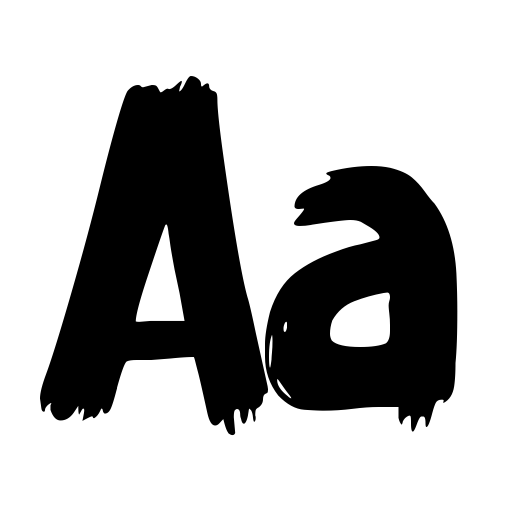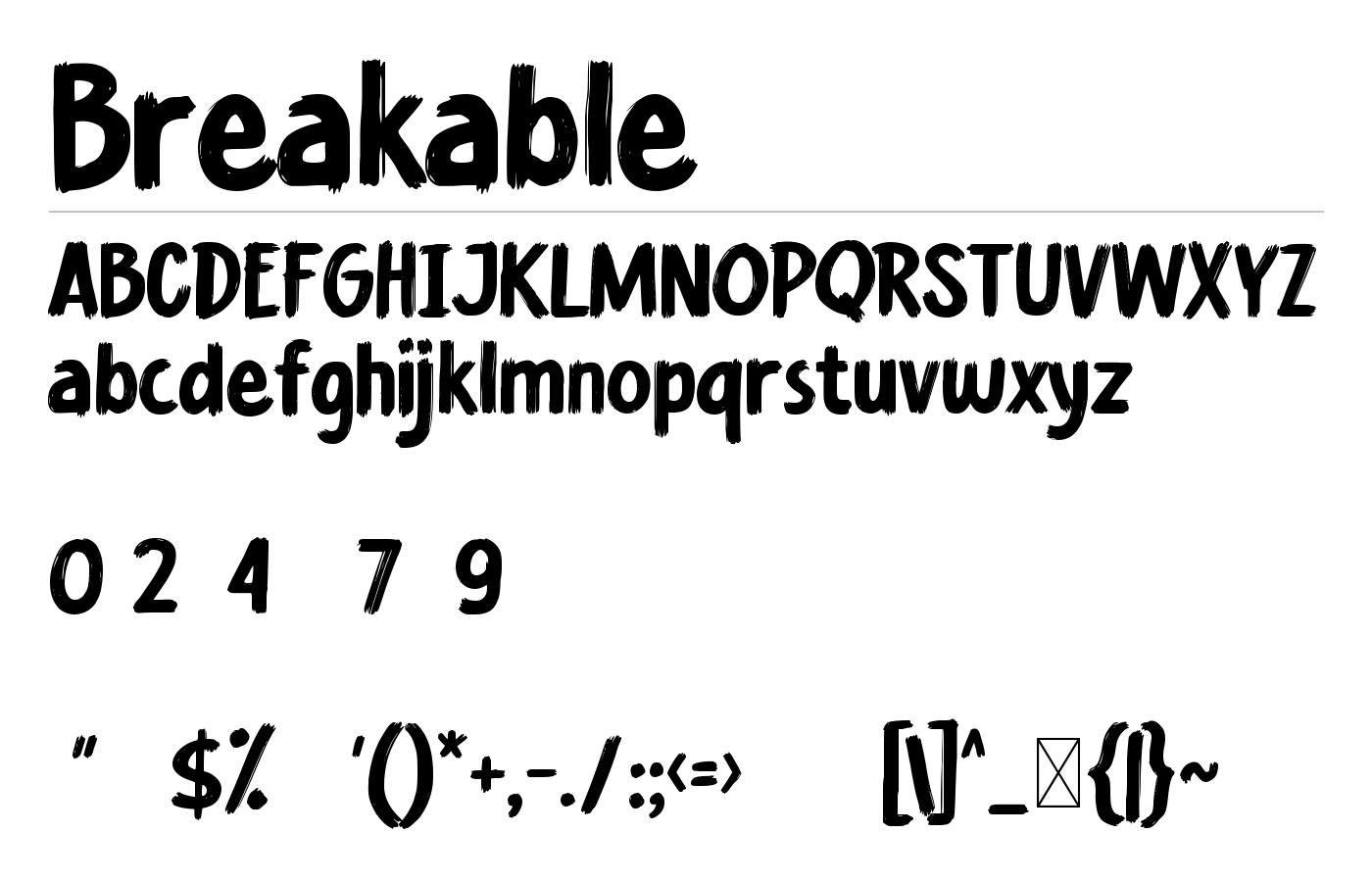
Breakable is a bold, playful sans serif font with a hand-drawn brush style that gives it a rough, textured look. Its slightly condensed letterforms and irregular edges convey a casual, energetic personality, making it ideal for eye-catching headlines, logos, and creative designs that want to feel lively and approachable. This font works best where a strong, informal vibe is desired, such as in posters, packaging, or branding for youth-focused and artistic projects.
Breakable Font
About Breakable Font
| Font family | Breakable Font |
| Designer | Anang F & Malik Wsn | Gassstype© Studio 2022 |